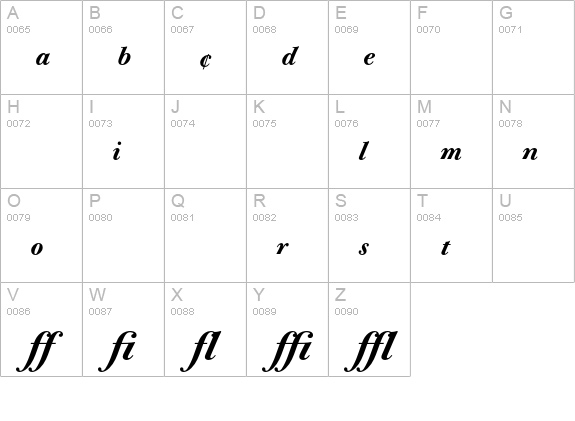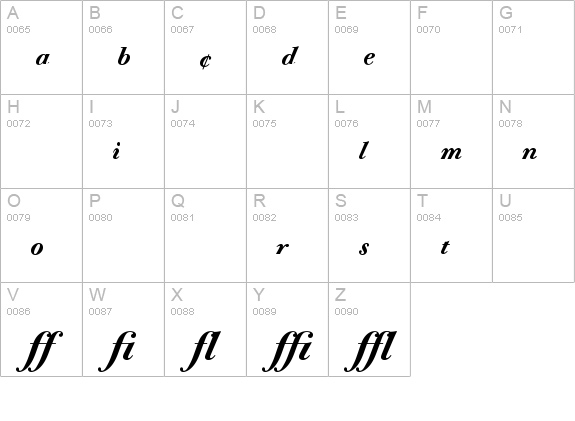
Bodoni Old Face BE Medium Italic Expert is a balanced, medium-weight, italic variant in the Bodoni typeface family \xE2\x80\x94 well suited to sub-headlines, navigation, and balanced editorial work.
Bodoni Old Face BE Medium Italic Expert is a sophisticated and elegant font that exudes class and refinement. With its distinctive serifs and graceful italic styling, this typeface is perfect for adding a touch of sophistication to any project. Its timeless design makes it versatile for a wide range of uses, from high-end branding to editorial layouts. What sets Bodoni Old Face BE Medium Italic Expert apart is its expertly crafted details that showcase the craftsmanship of the designer. The precise strokes and delicate curves create a sense of luxury and exclusivity that will elevate any design. Best of all, this exquisite font is available for free download at FontsMarket.com. Whether you're a professional designer looking to add a touch of elegance to your projects or a hobbyist wanting to enhance your creative endeavors, Bodoni Old Face BE Medium Italic Expert is a fantastic choice. Download it today and elevate your designs with this timeless and sophisticated typeface.